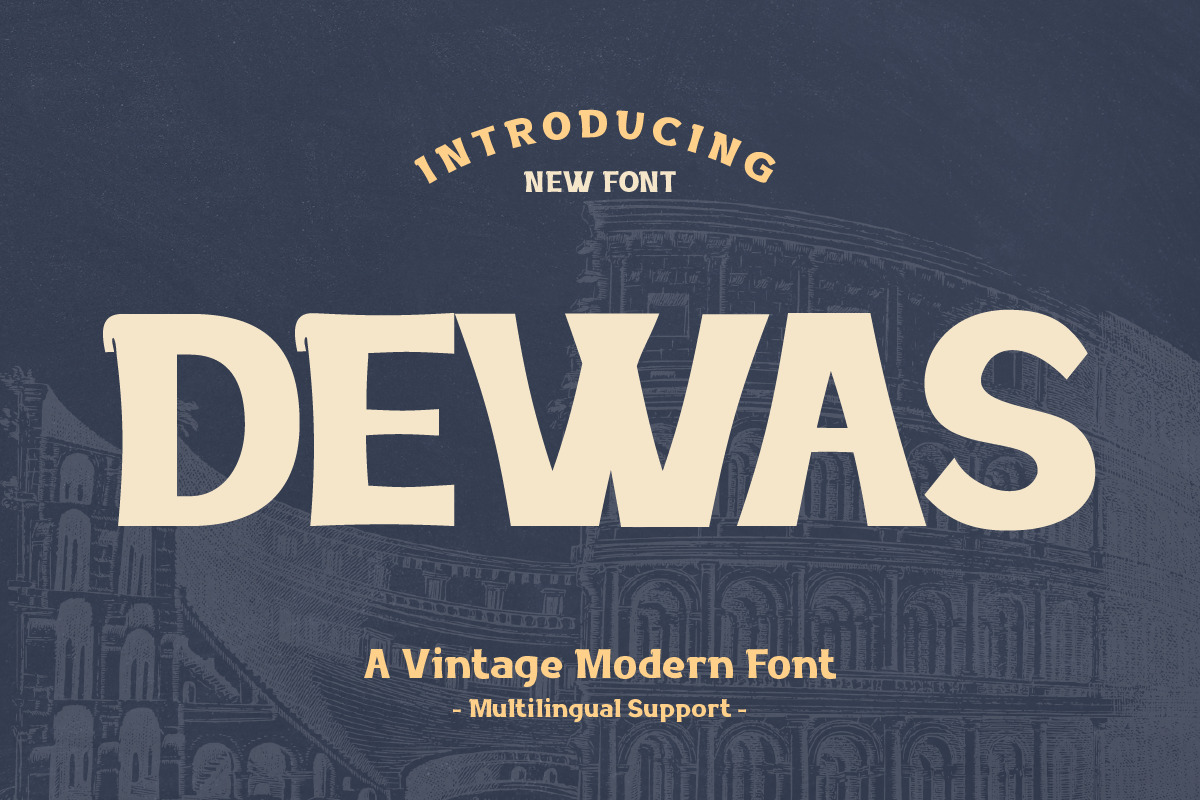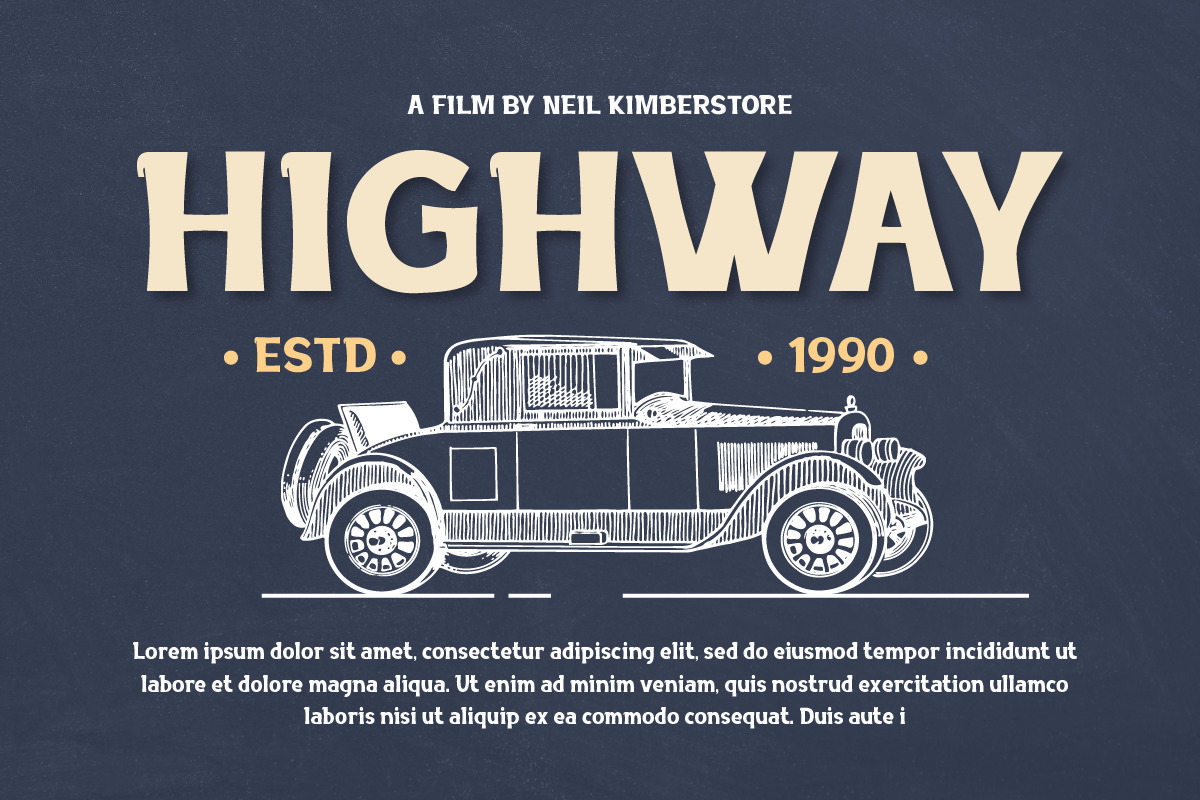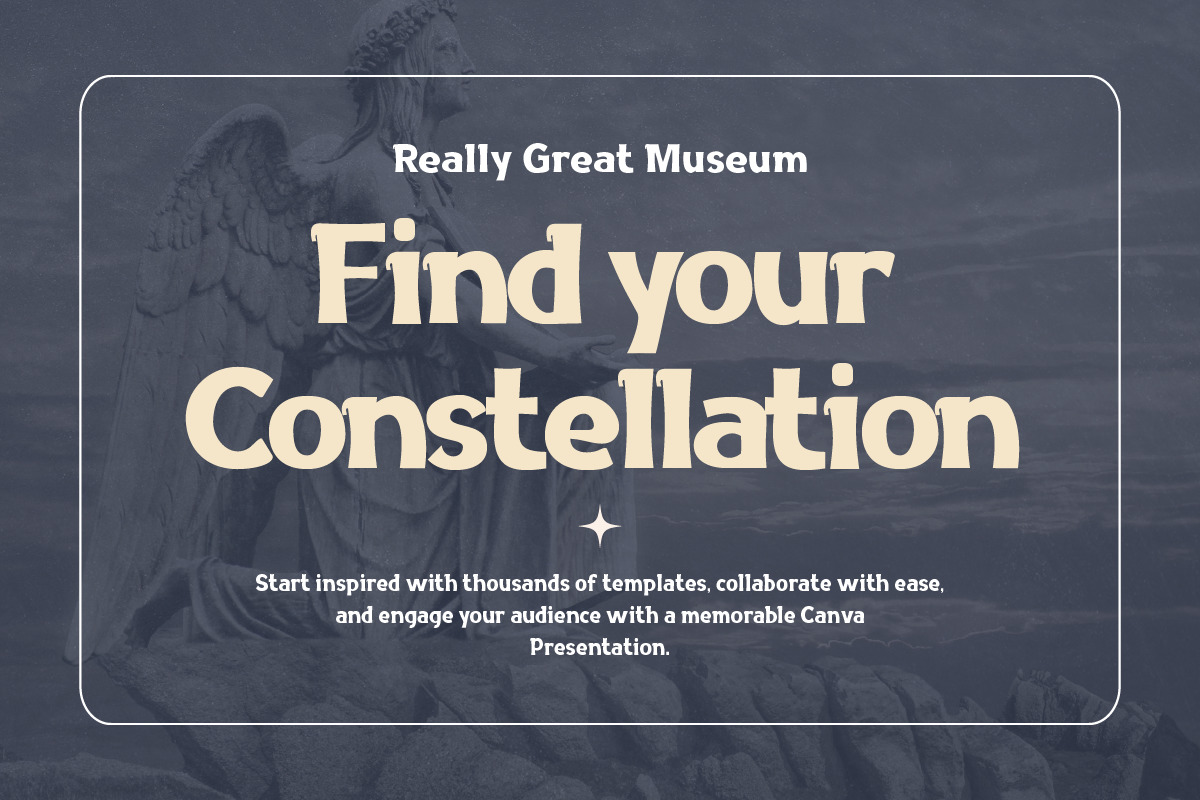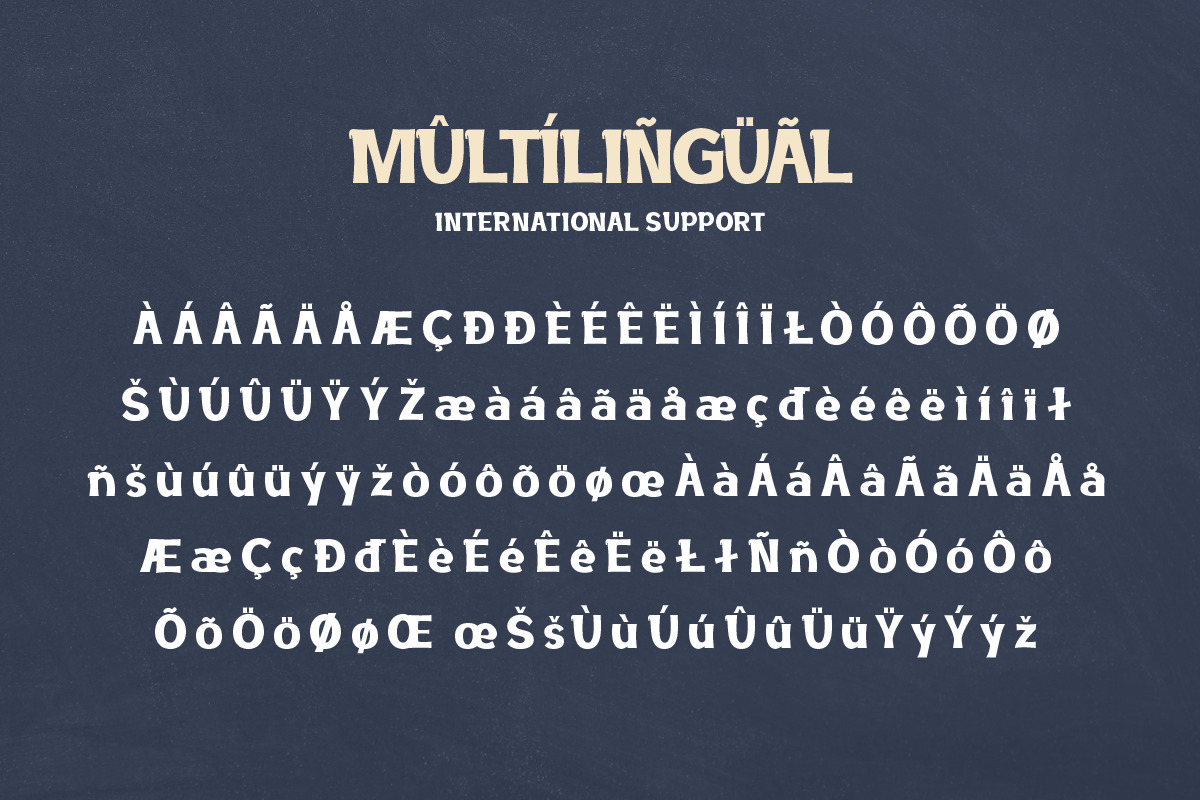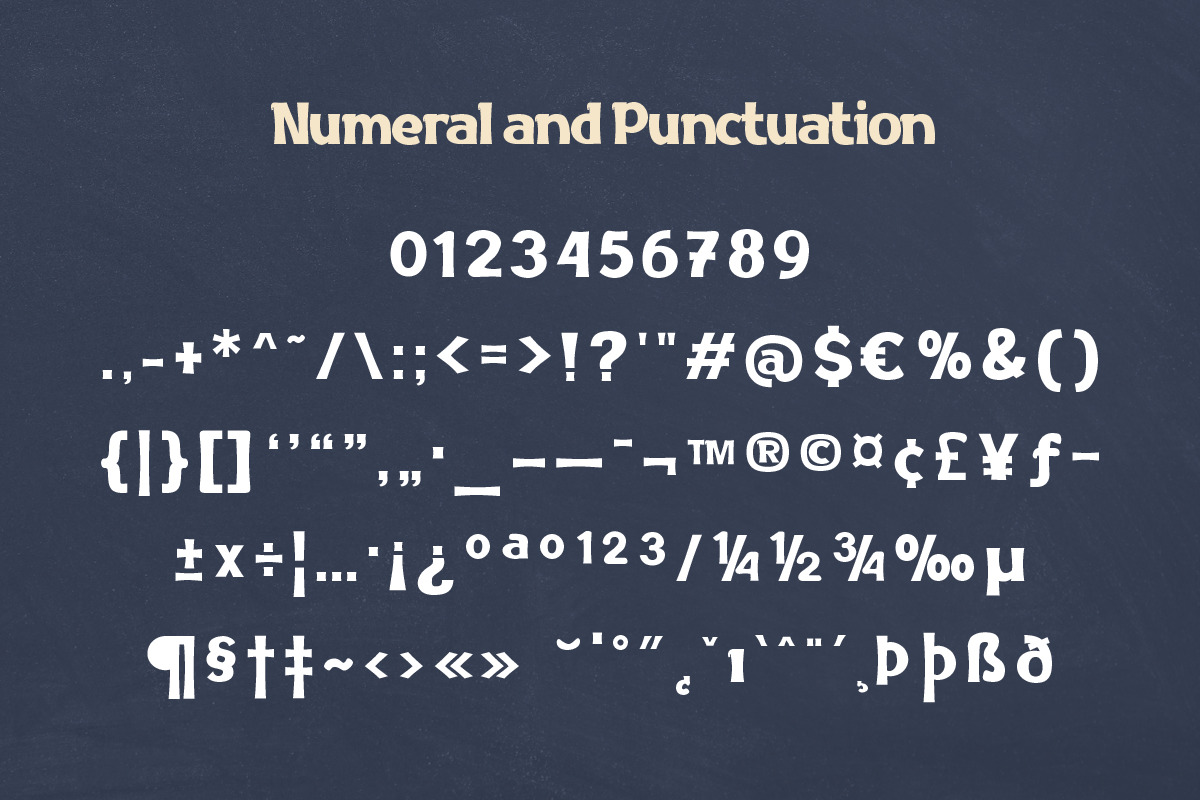
Dewas - San Serif Display Font
Looking for a font that combines the nostalgia of the past with the freshness of modern design? Meet Dewas, the retro-modern-vintage font that will take you on a journey through time. Inspired by the classic fonts of the mid-century, Dewas brings a touch of elegance and sophistication to your designs, without sacrificing its fun and playful side. Its smooth curves and clean lines make it a versatile font for any project, from logos and headlines to packaging and invitations. Whether you're designing for a hipster café or a vintage boutique, Dewas will add a unique and memorable touch to your brand. Get it now and let your creativity shine!